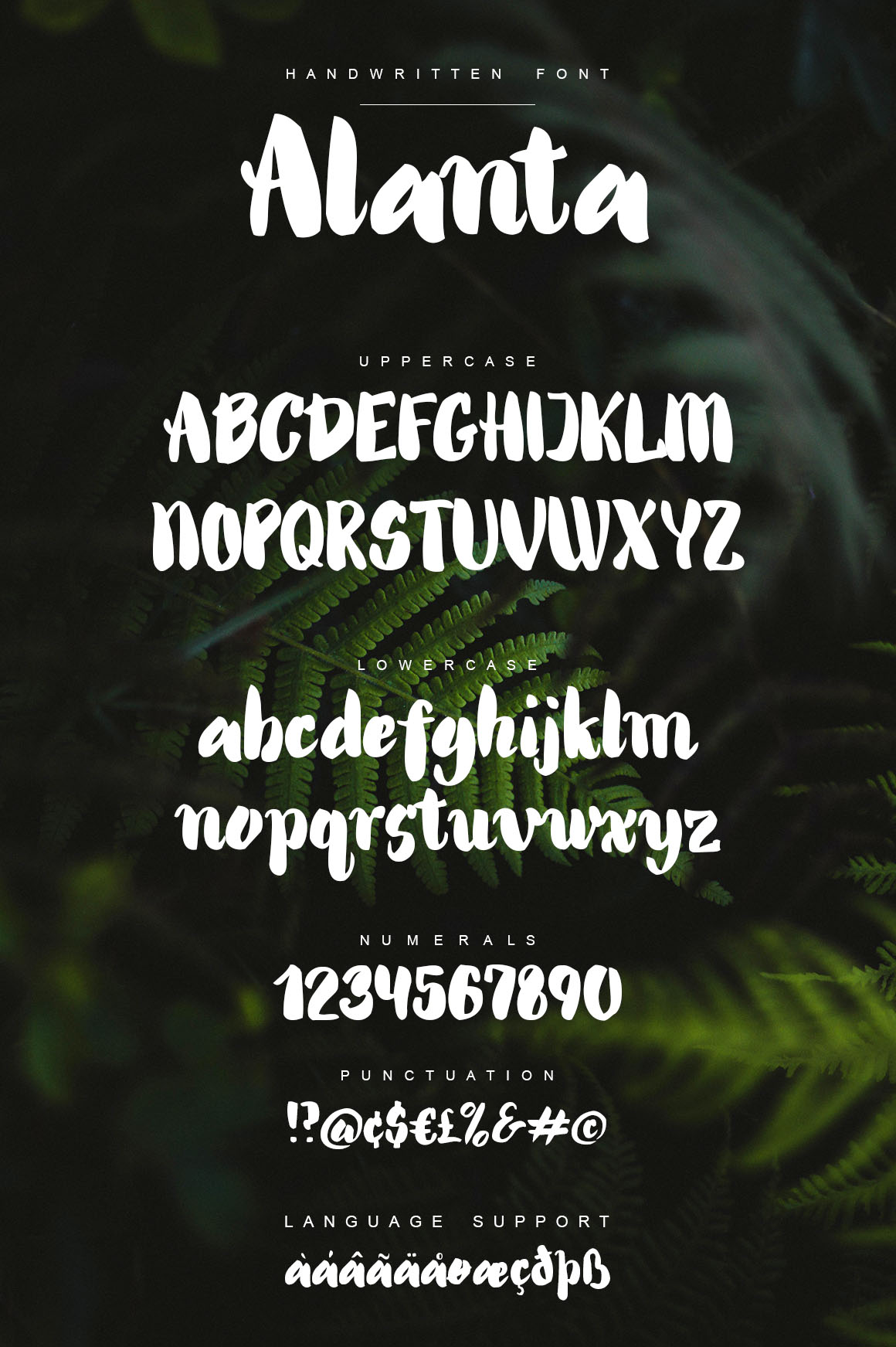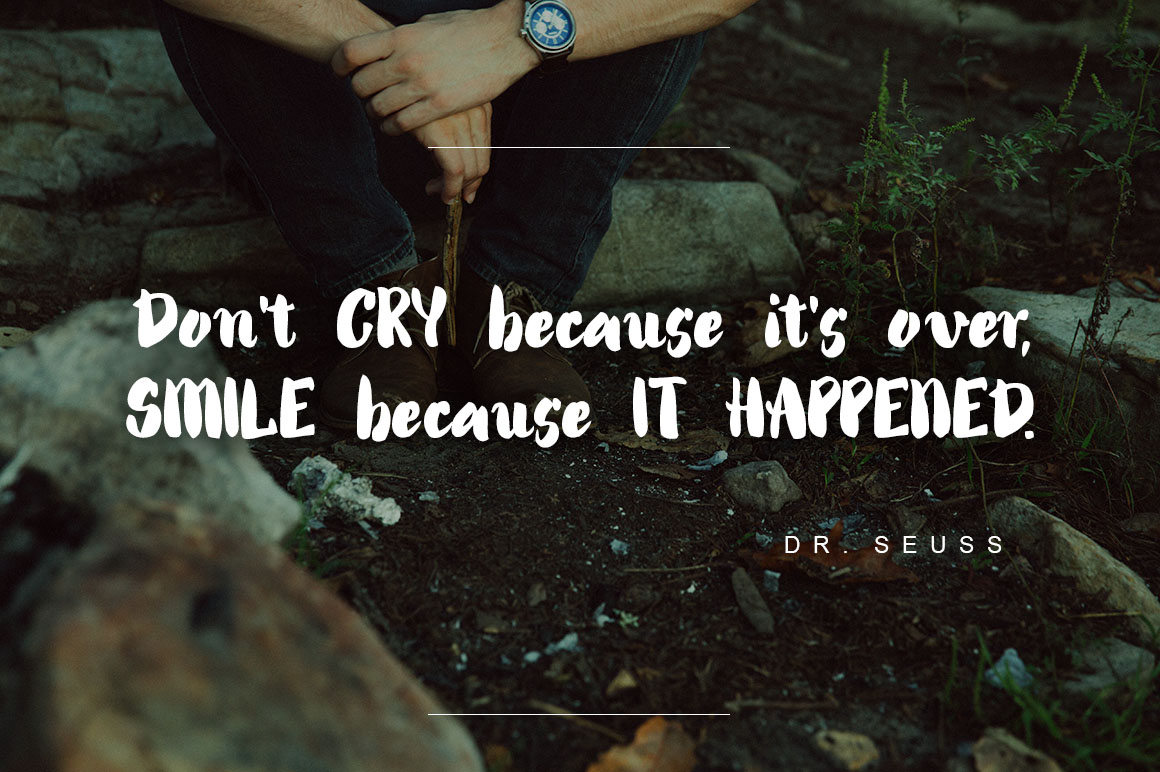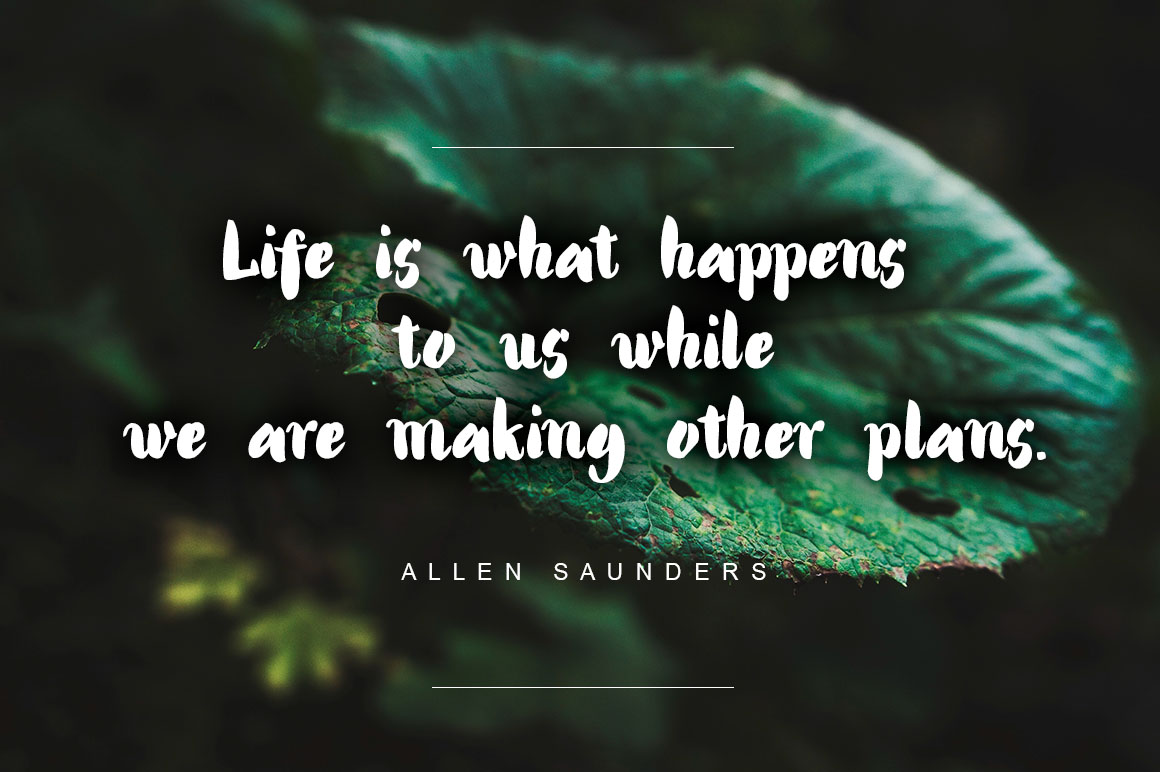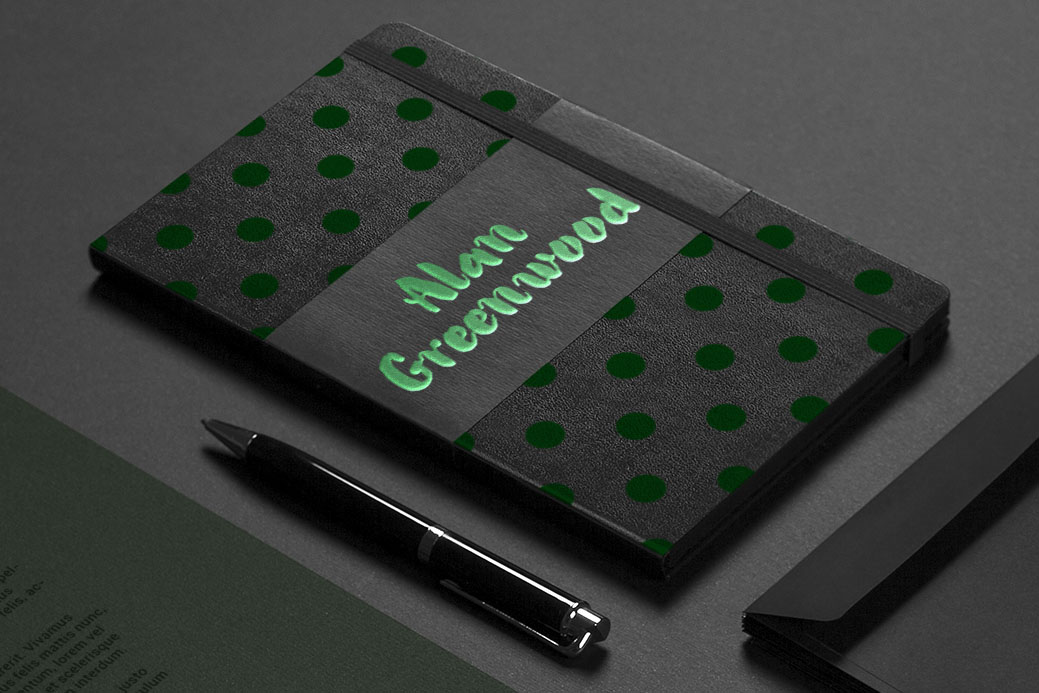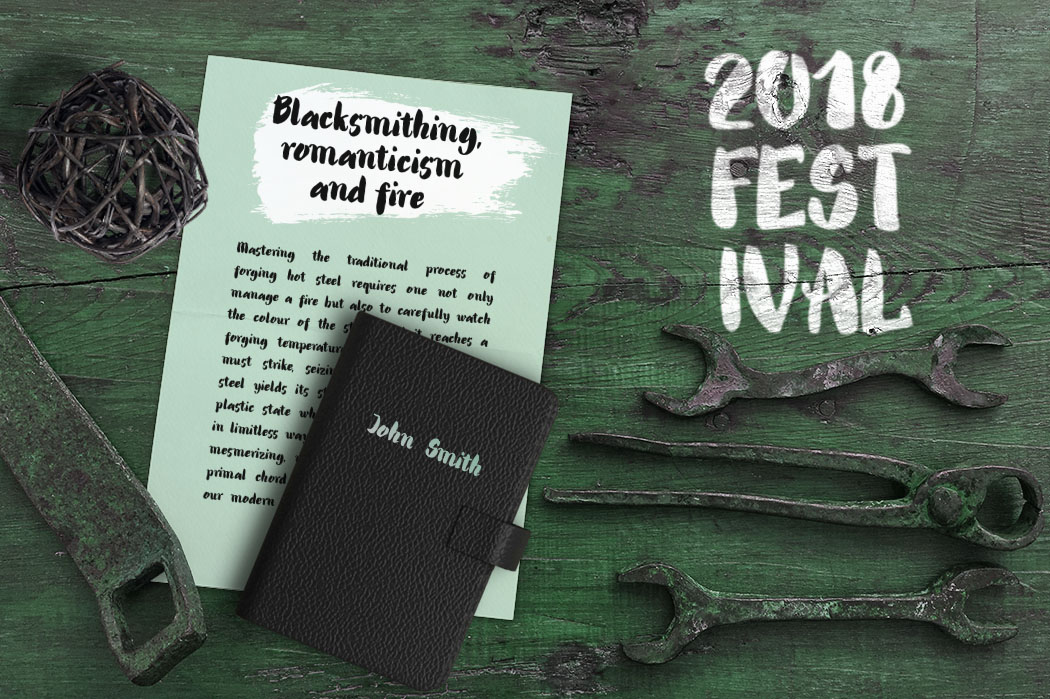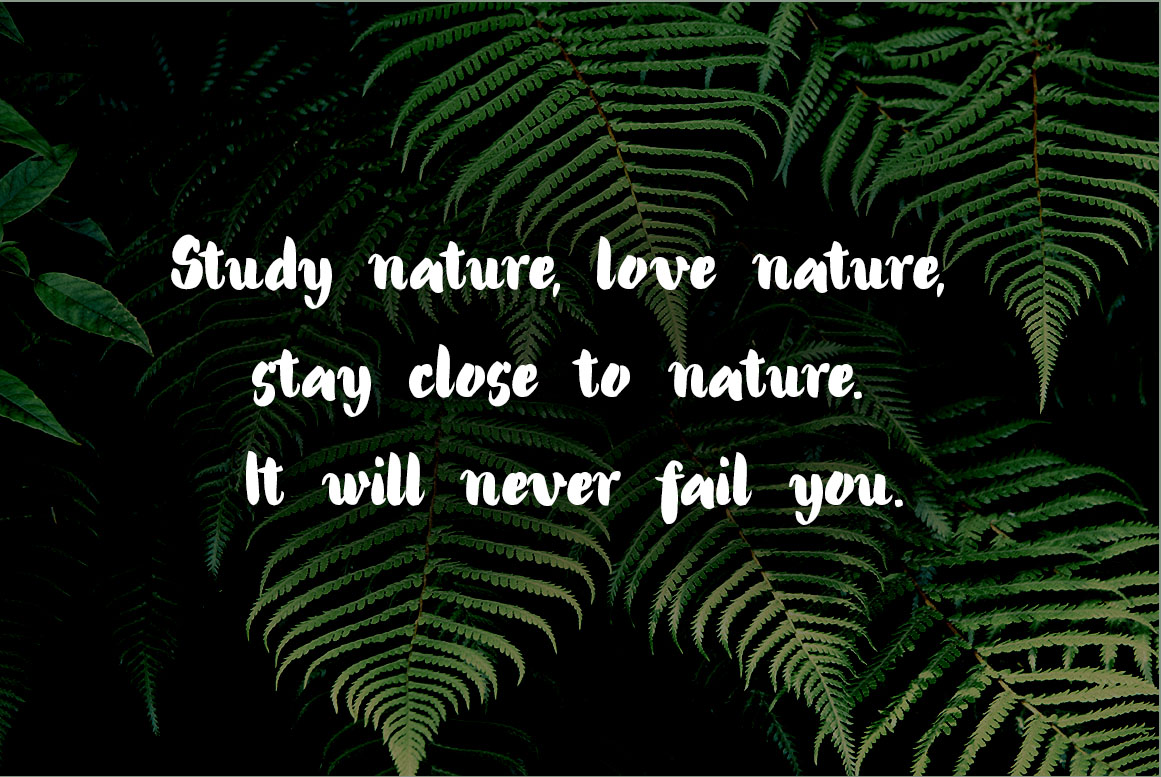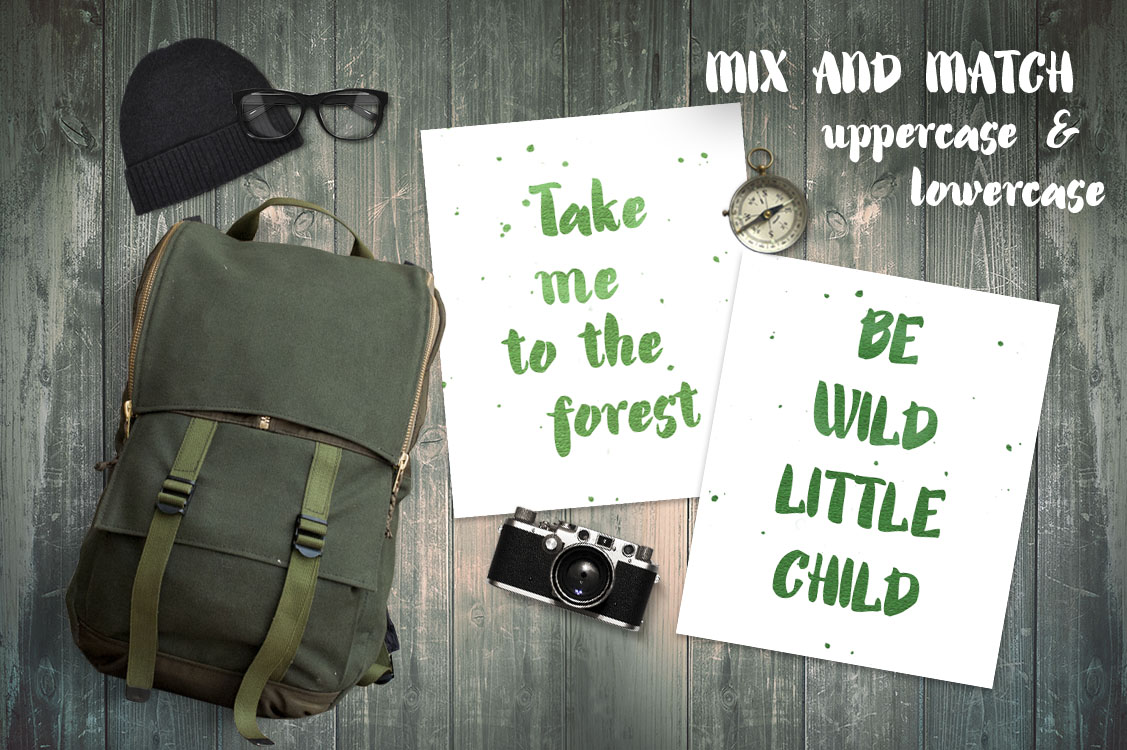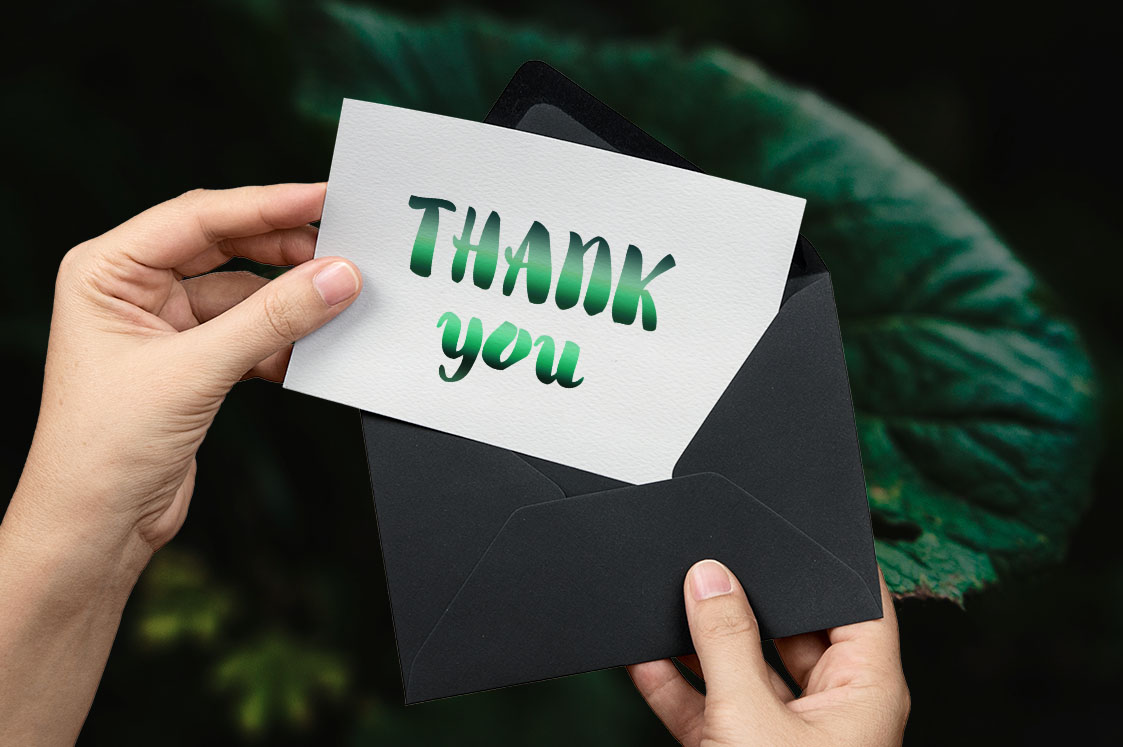
Alanta Font
About Alanta Font
Alanta is a hand-written font created with a brushpen. It’s suitable for a huge range of design projects, such as branding, posters, apparel, logotype, headers & headlines, fashion and much more!